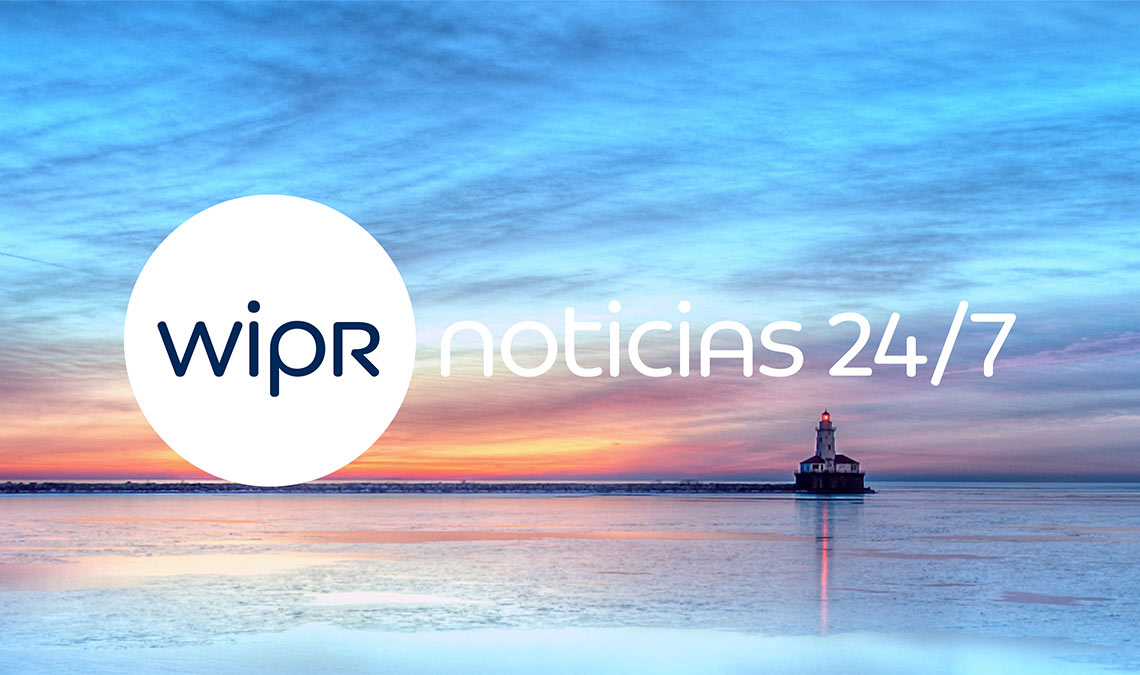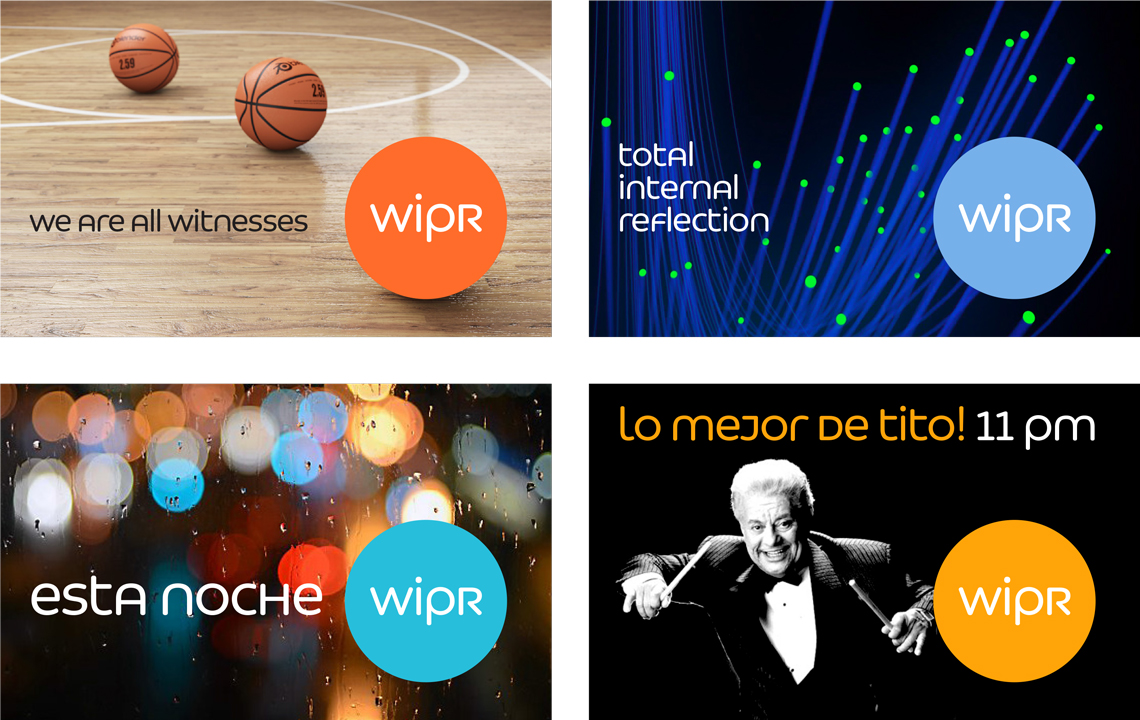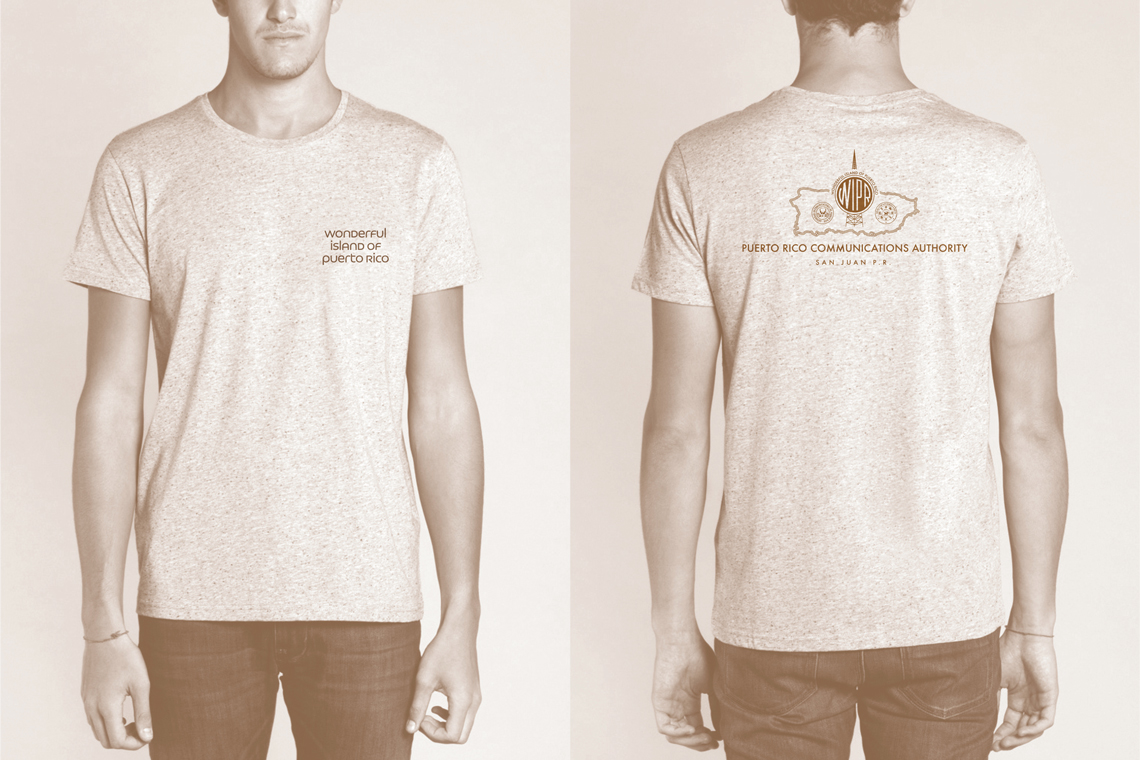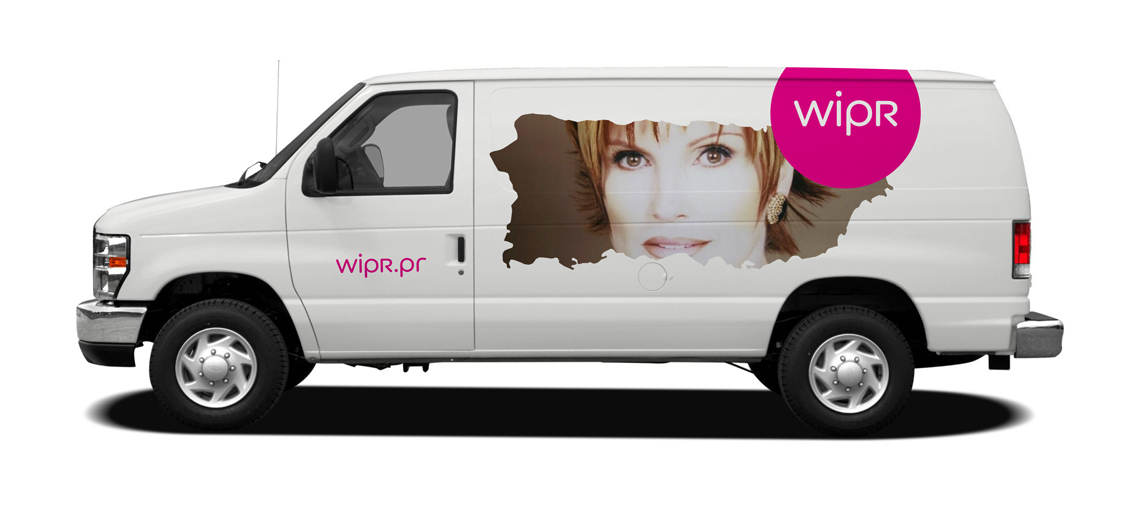
Tailored corporate font for WIPR
TypeTogether and Design Sessions studio collaborated in the development of a logotype and an associated type family for the government-owned TV channel and Radio stations of Puerto Rico. The resulting unicase type family, WIPR Unicase, was built taking into consideration the old brand of the TV station. It has several alternate lettershapes that allows for a more tailored approach in the creation of sub-brands.
A custom typeface for broadcasting and branding